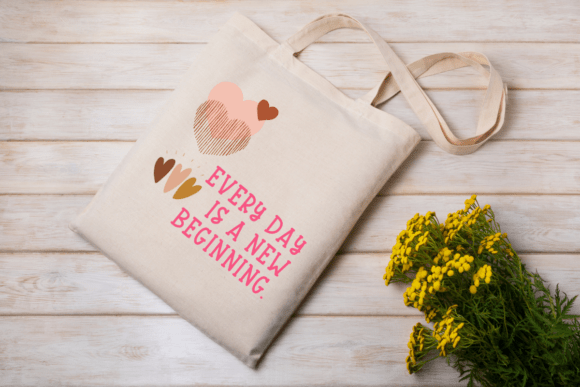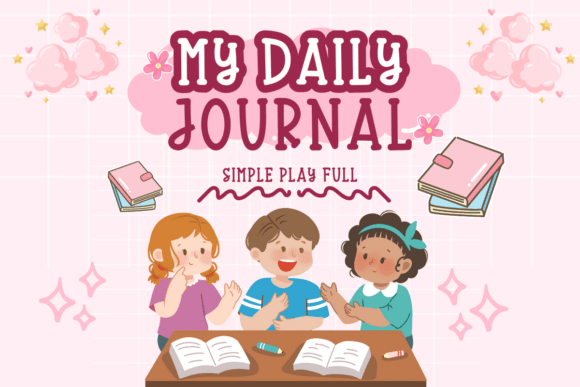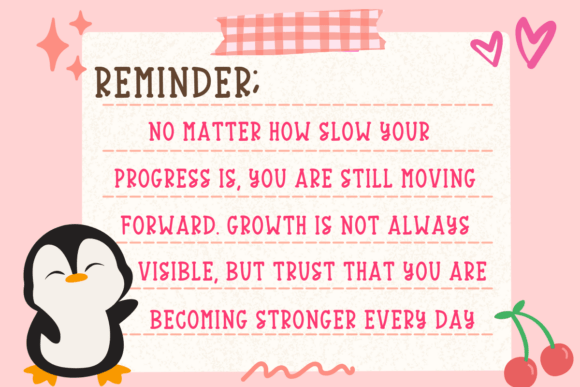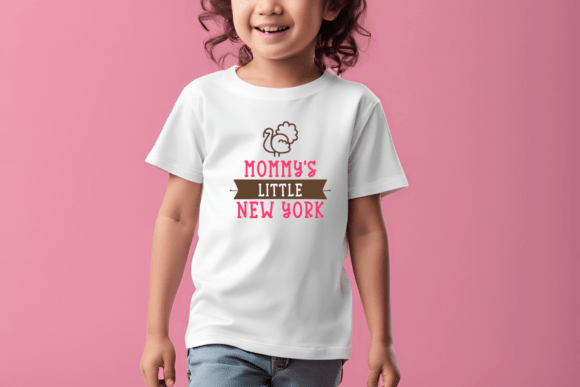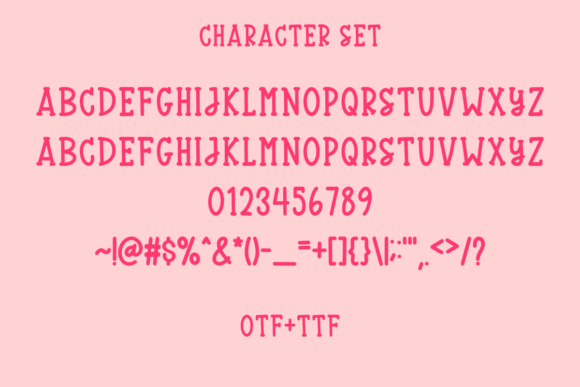
Introduction to Happy Sans Font
Have you ever been working on a creative project, and just as you’re about to add the finishing touches, you realize that your font is lacking that special something? You want something that’s not only visually appealing but also captures the essence of your design. That’s where the Happy Sans Font comes in – a fun and playful handwritten font that’s perfect for adding a personal touch to your crafts, planners, and DIY projects.
As a designer, you know how important it is to have a versatile design resource at your fingertips. Happy Sans Font fits the bill, offering a high-quality, free download that’s perfect for a variety of creative projects. From stickers and greeting cards to Cricut and sublimation designs, this font is a game-changer. And with its transparent background, you can easily layer it with other design elements to create a truly unique look.
Key Features of Happy Sans Font
- High-quality, sans-serif font with a transparent background, allowing for easy customization and versatility.
- Designed with a clean and modern aesthetic, making it perfect for a wide range of creative applications, from logos to digital displays.
- Supports various languages, including Latin, Cyrillic, and Greek, making it a great choice for international design projects.
- Resolution: 300 DPI, ensuring crisp and clear text display at various sizes and resolutions.
- Size: 24 styles, including light, regular, bold, and italic variations, providing ample flexibility for creative expression.
Honest Review: Happy Sans Font
As a designer, I’m always on the lookout for high-quality design resources to elevate my creative projects. The Happy Sans Font has been a recent addition to my toolkit, and I’m excited to share my honest review with you.
What works well: ✨ The Happy Sans Font has a clean and modern aesthetic that’s perfect for digital designs. Its transparent background makes it easy to overlay on any background image or color, giving me a lot of flexibility when it comes to creative projects. The font is also highly legible, even at small sizes.
Here are some of the font’s key features:
- High-quality vector format for crisp and clear rendering
- Transparent background for easy overlay
- Legible and modern aesthetic
Limitations: ⚠️ While the Happy Sans Font is a solid addition to my design resource arsenal, I do wish it had more font styles or weights to choose from. Additionally, the font may not be suitable for print designs due to its digital focus.
Overall, I’m impressed with the Happy Sans Font and would definitely recommend it to designers looking for a high-quality, free download for their creative projects.
Tips for Getting the Most Out of Happy Sans Font
Use the Happy Sans Font in combination with other design elements to create a cohesive and visually appealing design. Experiment with different font sizes, colors, and styles to get the most out of it.
Common Use Cases for Happy Sans Font
The Happy Sans Font is perfect for designing social media graphics, brochures, flyers, or any other creative project that requires a clean and modern look. Its high quality and free download make it an excellent design resource for designers and non-designers alike.